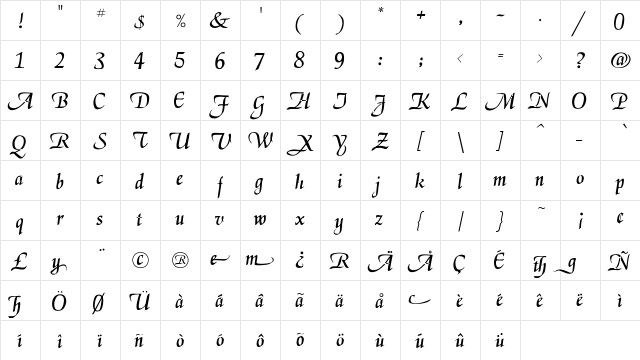
Garrison Regular
Design Context for Garrison Typeface
Garrison is a composed and adaptable typeface that performs quietly and consistently across a wide range of design contexts.